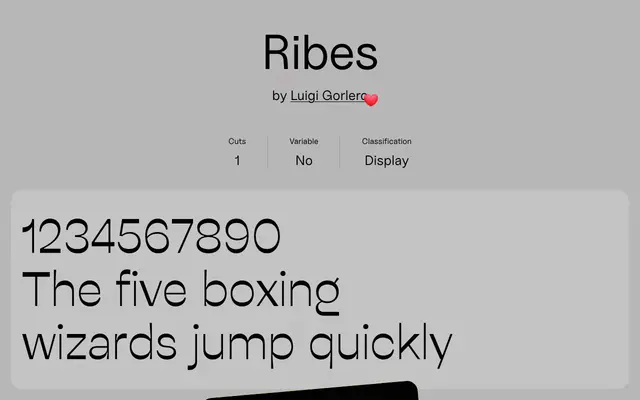
Ribes
Ribes is a display typeface designed by Luigi Gorlero, offered as a single cut with no variable axis. Released under the SIL Open Font Licence 1.1, it is free for both commercial and personal projects, with the usual attribution and redistribution conditions applying. Its classification as a display face suggests it is intended for headline sizes rather than running text.
The foundry classifies this as Display, and with only a single cut and no variable axis, it is purpose-built for headline and decorative use rather than body text.